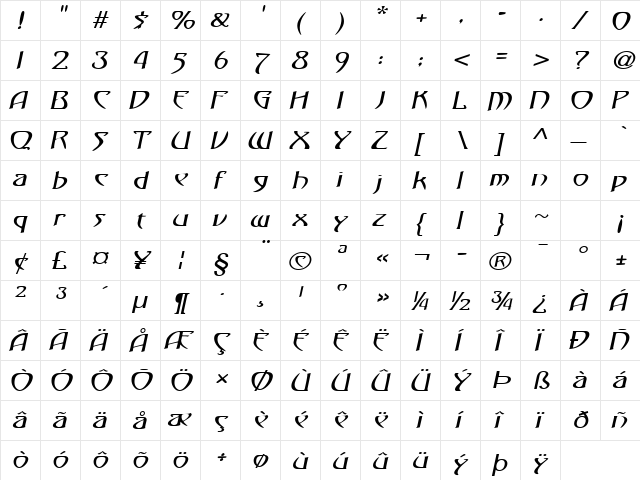
Saga-Expanded Italic
Design Context for Saga-Expanded Typeface
Saga-Expanded is a composed and adaptable typeface that performs quietly and consistently across a wide range of design contexts. The dynamic lean of this cut emphasises speed and emphasis in any layout.
Pro Tip: Try Saga-Expanded for annotation and caption copy alongside an upright companion — the contrast in angle creates a dynamic but ordered typographic system.